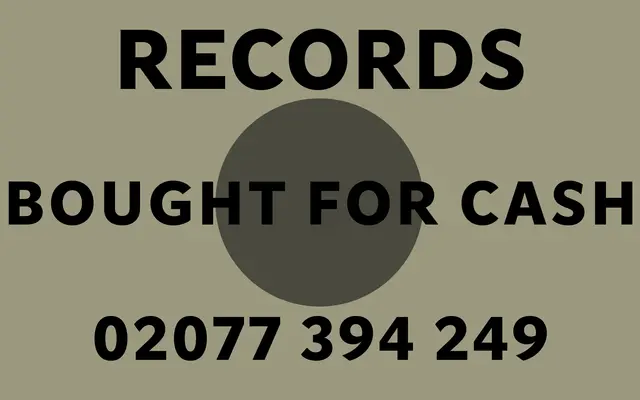
Nuacht Sans
A2-Type · 2018
A humanist sans designed as the caption and UI face within A2-Type's bespoke type system for the 2018 Irish Independent redesign.
Part of a four-subfamily system commissioned for the Irish Independent, Nuacht Sans sits alongside a calligraphic serif and condensed variants for sport and infographics. The family spans eight weights from Thin to Black, each with matching italics, giving editors a broad tonal range for captions, UI labels and secondary text. Its described industrial character sits in contrast to the warmth of the companion Nuacht Serif, creating clear typographic hierarchy across the printed page.
Described by A2-Type as a 'Humanistic' sans with an industrial character, designed to complement a calligraphic serif within a newspaper type system.